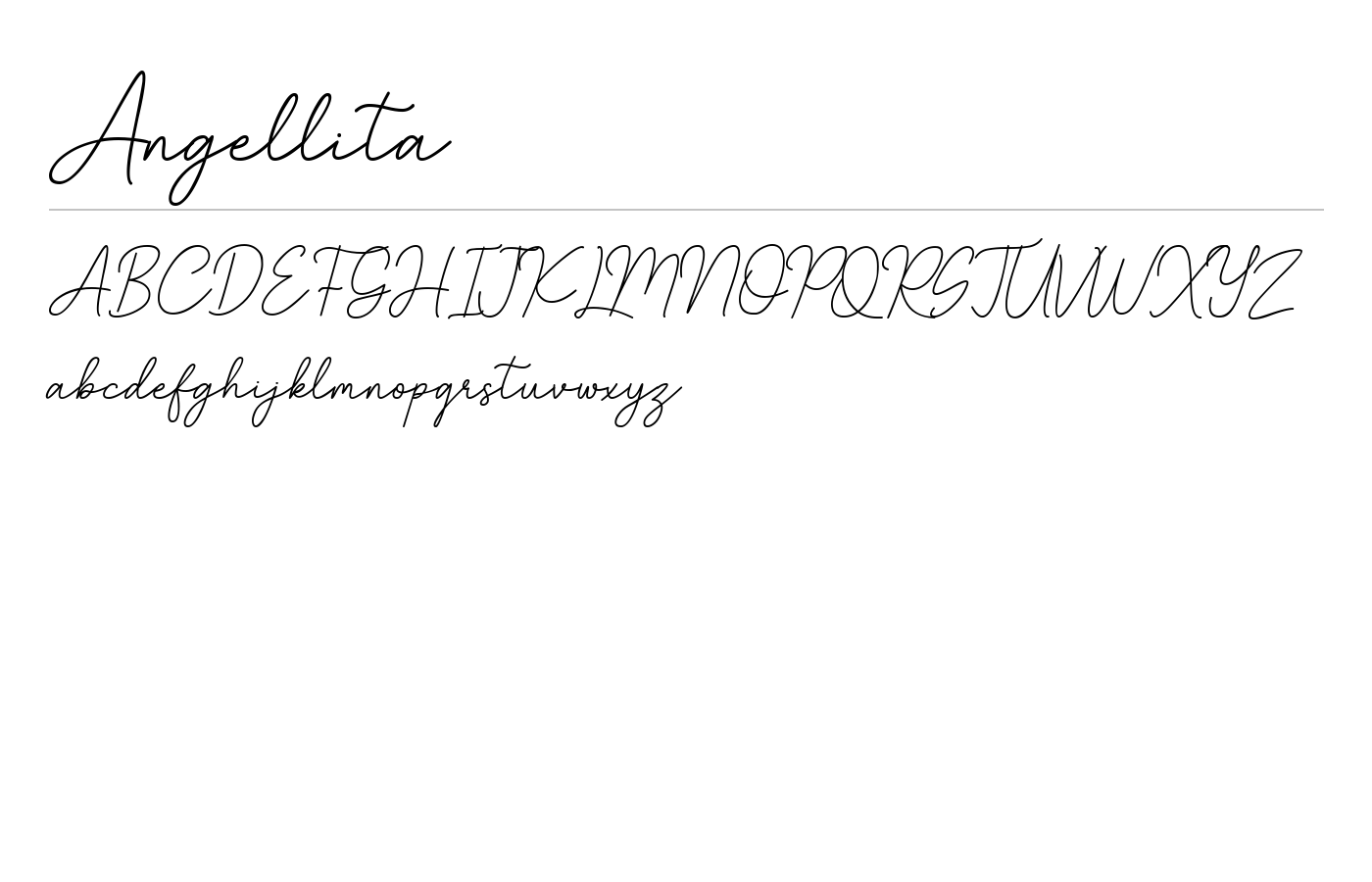
Angellita is a delicate, script-style font featuring thin, fluid strokes that mimic elegant handwriting with a natural, flowing rhythm. Its slender letterforms and graceful curves create a refined, feminine feel, making it ideal for invitations, branding, and editorial designs that seek a personal and sophisticated touch. This font works well for projects needing a stylish, lightweight appearance that communicates elegance and charm.
Angellita Font
About Angellita Font